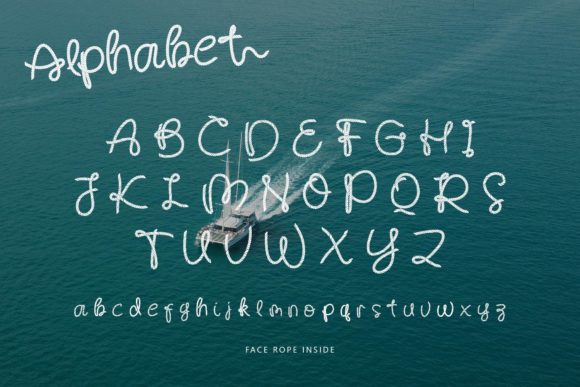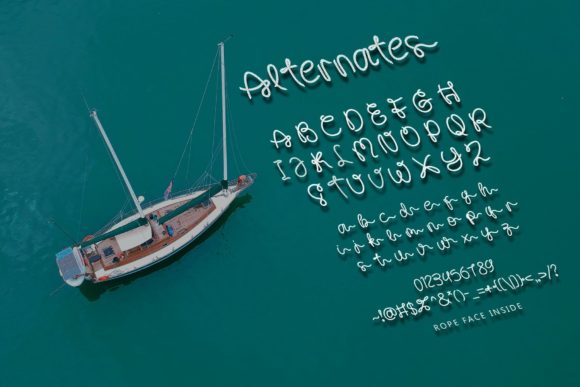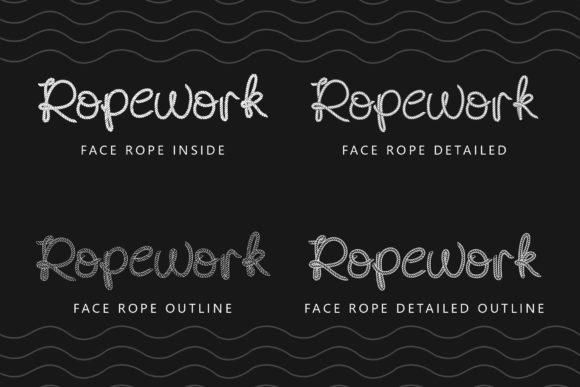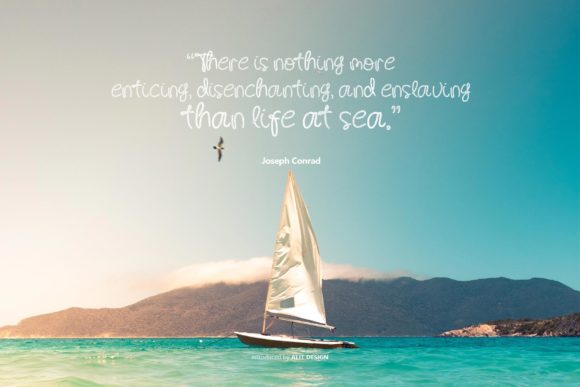
Face Rope Font
Face Rope is a cool and interestingly designed display font. Whether you are using it for cartoon-related designs, children’s games, quotes, titles, brand names, book covers, posters, or just any creation that requires a touch of joy, this font is a great choice.